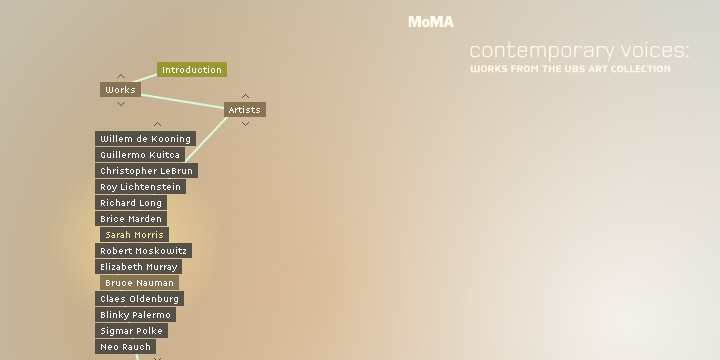
The CP Company Flash Font excels in sportswear branding, streetwear fashion communications, urban lifestyle magazines, athletic apparel design, youth-oriented marketing, contemporary fashion advertising, modern retail signage, and dynamic brand identities that require urban sophistication with street credibility and contemporary edge.
What makes the CP Company Flash Font Free Download so exciting is its perfect capture of contemporary urban fashion aesthetics through typography that embodies both street authenticity and high-fashion sophistication. This typeface combines modern geometric forms with subtle industrial influences that reflect the innovative design philosophy of contemporary streetwear culture. Its distinctive character speaks to fashion-forward audiences who appreciate both technical innovation and urban authenticity, making it ideal for fashion brands seeking to establish credibility in competitive streetwear and contemporary fashion markets.
The CP Company Flash Font family encompasses multiple weight variations from Light to Bold, each maintaining the font's signature urban character and fashion-forward appeal. The collection includes Regular, Medium, and Bold styles with contemporary characteristics that enhance the font's streetwear aesthetic. This modern font system ensures fashion brands and urban lifestyle companies have access to typography that conveys street credibility while creating immediate connection to contemporary fashion culture and urban sophistication.
Perfect for streetwear brands, urban fashion retailers, contemporary lifestyle companies, and creative agencies working with fashion-conscious audiences who value both innovation and authenticity. The font's urban appeal makes it invaluable for fashion marketers, streetwear designers, and creative professionals developing communications that must resonate with style-conscious consumers seeking cutting-edge fashion experiences. Download CP Company Flash Font Free Download today and flash urban sophistication in your fashion projects with this exceptional typeface that captures the essence of contemporary streetwear culture with technical innovation and urban authenticity.